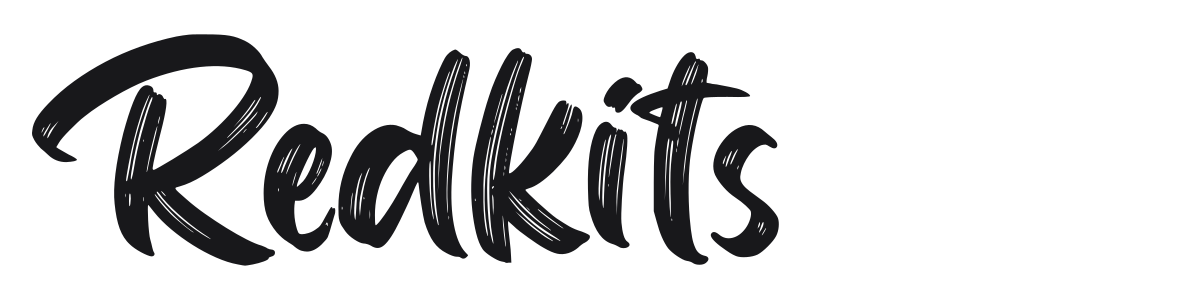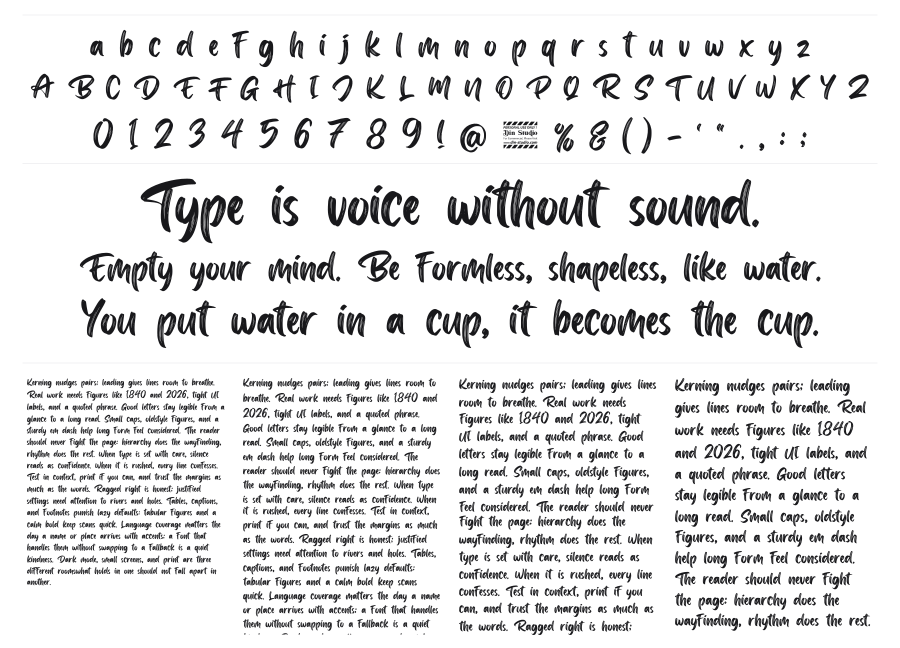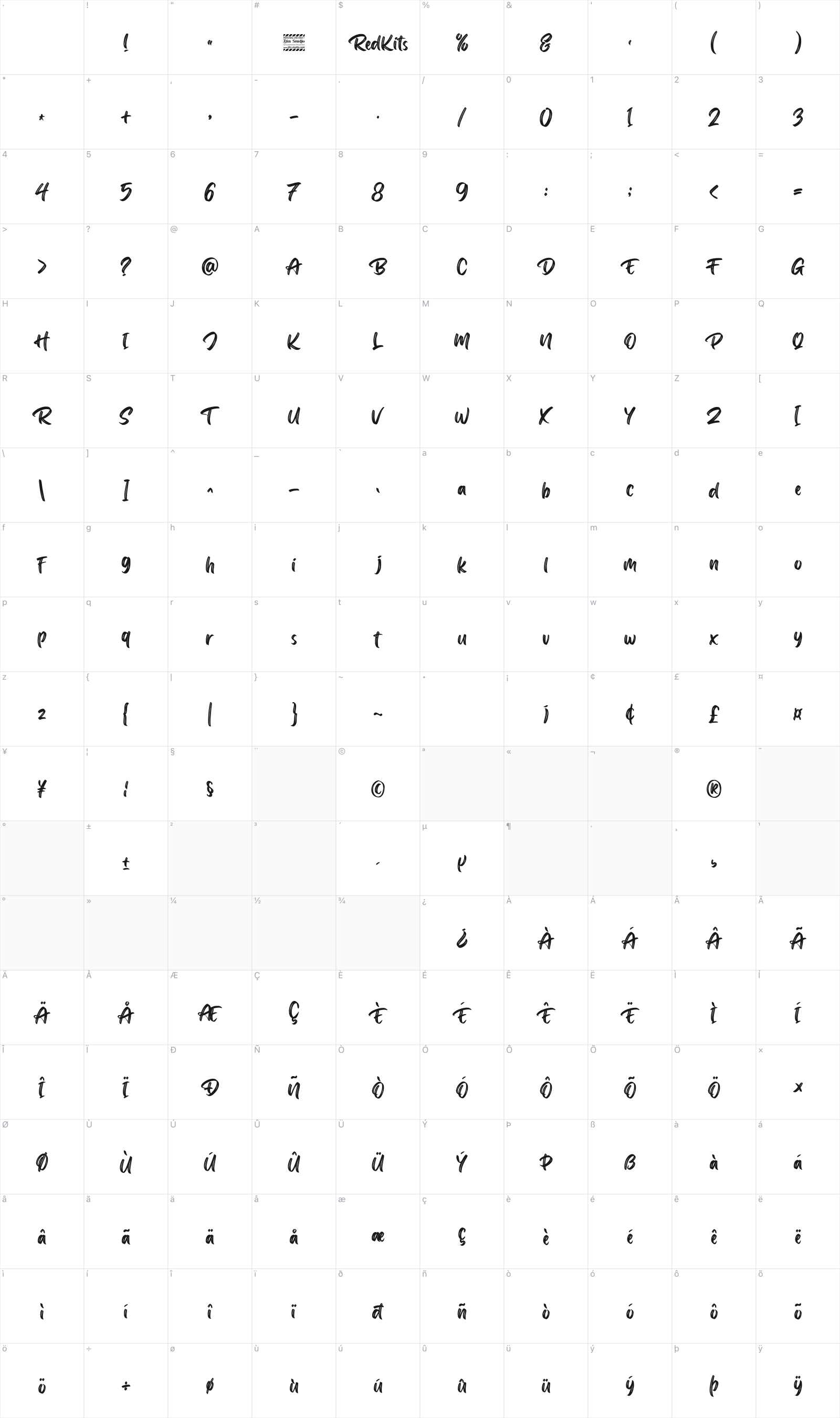
Redkits
Redkits is a casual brush script from Din Studio with the kind of natural ink texture that makes it feel genuinely hand-lettered. Thick-to-thin stroke contrast and a lively bouncy baseline give it energy without losing legibility at headline sizes. It suits branding, logos, and quote graphics where a warm, handmade feel matters.